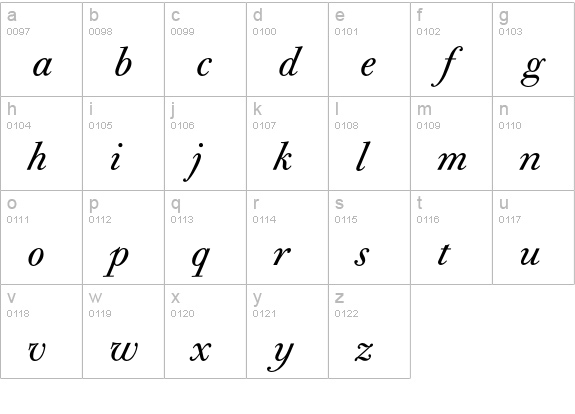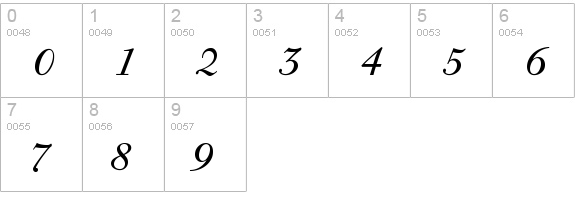
Bodoni Old Face Italic Font Details
Bodoni Old Face Italic is a distinctive, italic variant in the Bodoni typeface family \xE2\x80\x94 well suited to design and typography projects.
Bodoni Old Face Italic font exudes elegance and sophistication with its graceful curves and timeless design. The italicized variation of the classic Bodoni Old Face typeface adds a touch of flair and style to any project it is used in. The slanted letters convey a sense of movement and dynamism, making this font perfect for creating eye-catching headlines, invitations, and editorial designs. This exquisite font is now available for free download at FontsMarket.com, allowing designers and creatives to access its beauty and versatility without any cost. Whether you're working on a high-end fashion magazine layout or designing a luxurious wedding invitation, Bodoni Old Face Italic font will elevate your project to new levels of sophistication and charm. Don't miss this opportunity to enhance your designs with this stunning typeface that combines tradition with modernity seamlessly.